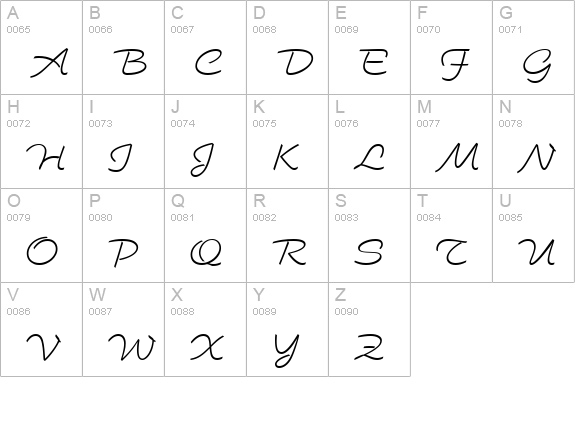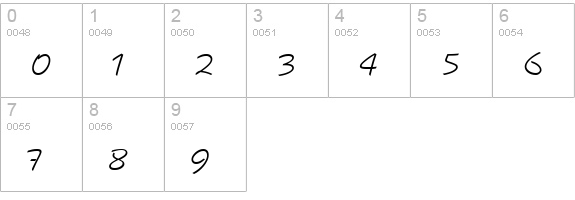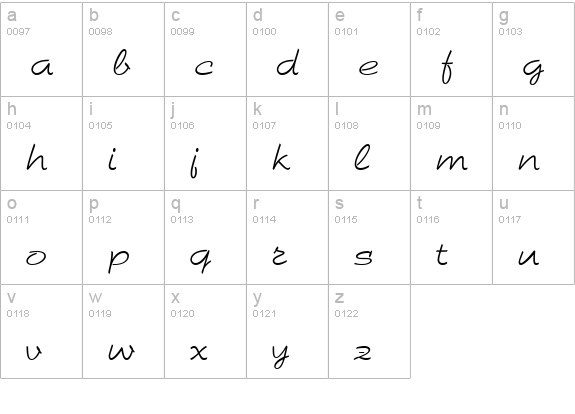
Brio MN Font Details
Brio MN font is a modern and elegant typeface that exudes sophistication and style. Its sleek lines and balanced proportions make it a versatile choice for a wide range of design projects. With its clean and timeless look, Brio MN is perfect for both digital and print applications. The best part? Brio MN font is free to download at FontsMarket.com, making it accessible to all designers and creatives looking to elevate their work with a touch of class and professionalism. Don't miss out on this opportunity to enhance your projects with the beauty of Brio MN font - download it today and add a touch of refinement to your designs.